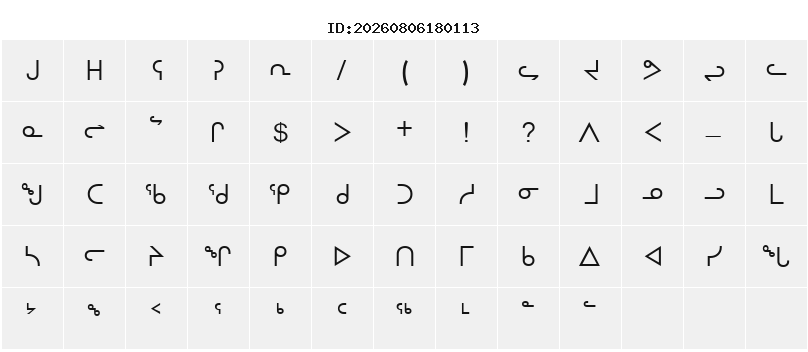
OldSyl Preview
• Font Name: OldSyl
• Full Font Name: OldSyl
About OldSyl.ttf
OldSyl.ttf is a modern, elegant sans-serif font designed for ultimate readability and visual harmony. Perfect for branding, headlines, web design, and print materials.